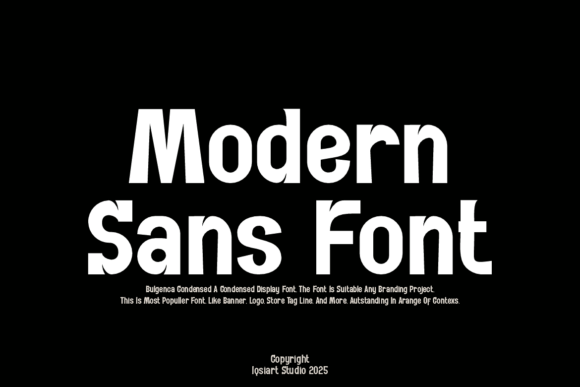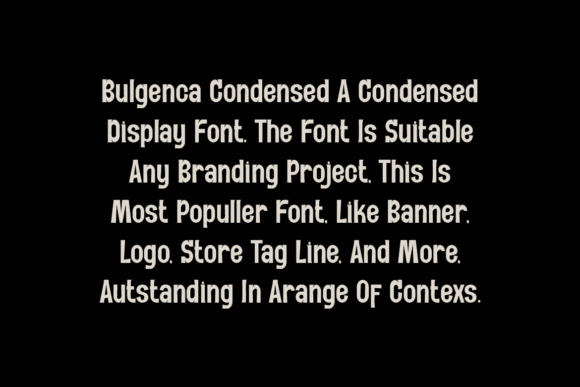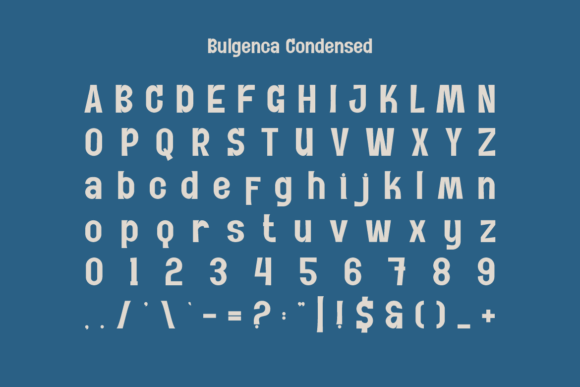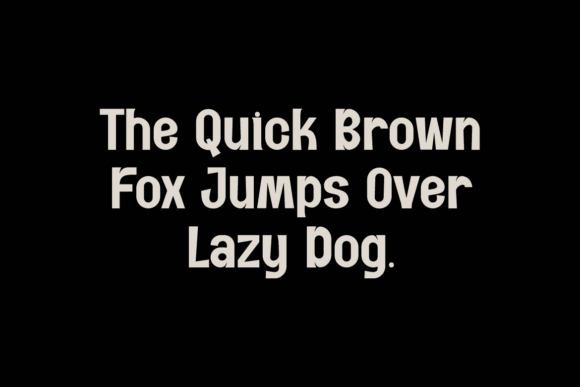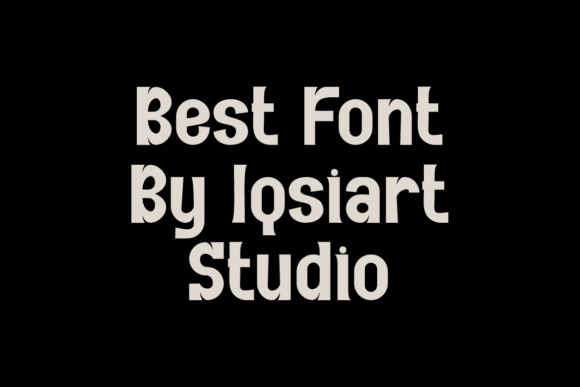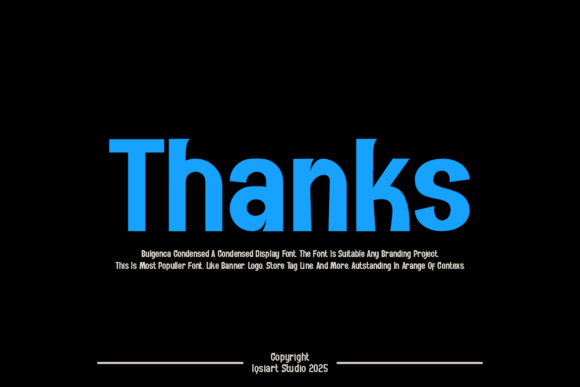
Bulgenca Condensed Font: Elevate Your Designs with Sleek Sophistication
In the realm of typography, fonts play a pivotal role in shaping the visual identity of a brand, product, or editorial content. Among the myriad of fonts available, Bulgenca Condensed stands out as a modern sans-serif display font that embodies sleekness and sophistication. Designed to make a bold statement, Bulgenca Condensed is perfect for projects that demand high-impact visuals, clarity, and confidence.
Bulgenca Condensed boasts tall, narrow letterforms that exude a sense of elegance and refinement. Its clean aesthetic ensures that the font remains versatile, making it suitable for a wide range of applications, from branding and editorial layouts to tech projects and fashion-forward graphics. The condensed design allows for efficient use of space, making it ideal for headlines, titles, and labels where impact and legibility are paramount.
- Sleek and Contemporary Design: Bulgenca Condensed features a modern sans-serif design that instantly elevates the visual appeal of any project.
- Tall and Narrow Letterforms: The font’s condensed style makes it perfect for creating striking headlines, titles, and labels that demand attention.
- Clean Aesthetic: The clean lines and minimal ornamentation ensure that the font remains legible and versatile across various applications.
- High-Impact Visuals: Bulgenca Condensed is designed to make a bold statement, making it ideal for branding, editorial layouts, tech projects, and fashion-forward graphics.
Applications
Bulgenca Condensed’s versatility makes it an excellent choice for various design projects. Here are some of the ideal applications for this font:
- Branding: Use Bulgenca Condensed to create bold, memorable logos and brand identities that stand out in a crowded market.
- Editorial Layouts: The font’s clean aesthetic and legibility make it perfect for headlines, titles, and section dividers in editorial layouts.
- Tech Projects: Bulgenca Condensed’s modern design makes it an excellent choice for tech-related projects, such as software interfaces, app designs, and website headers.
- Fashion-Forward Graphics: The font’s sleek and sophisticated design makes it ideal for fashion branding, product labels, and advertising campaigns.
Bulgenca Condensed offers several benefits for designers and crafters looking to elevate their designs:
- Time-Efficient: The font’s condensed design allows designers to create high-impact visuals quickly and efficiently.
- Versatile: Bulgenca Condensed’s clean aesthetic and legibility make it suitable for a wide range of applications and design projects.
- Confidence-Inspiring: The font’s bold and sleek design instills confidence in the designer’s work, making it perfect for projects that demand a professional look.
In conclusion, Bulgenca Condensed is a powerful font that can elevate any design project with its sleek and sophisticated aesthetic. Its versatility, legibility, and high-impact visuals make it an excellent choice for designers and crafters looking to create bold, memorable, and professional-looking designs. Whether you’re working on branding, editorial layouts, tech projects, or fashion-forward graphics, Bulgenca Condensed is the perfect font to deliver clarity with confidence.